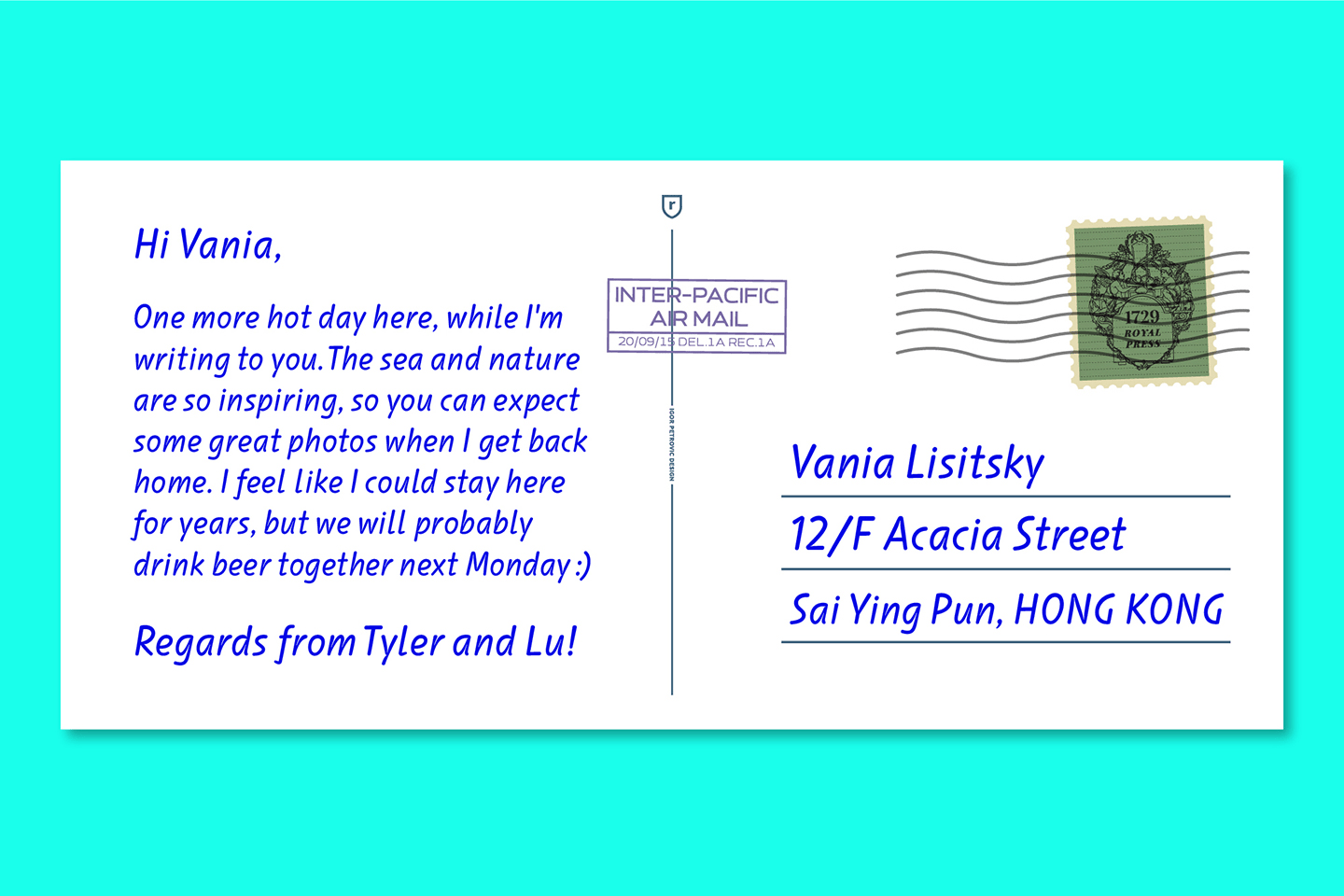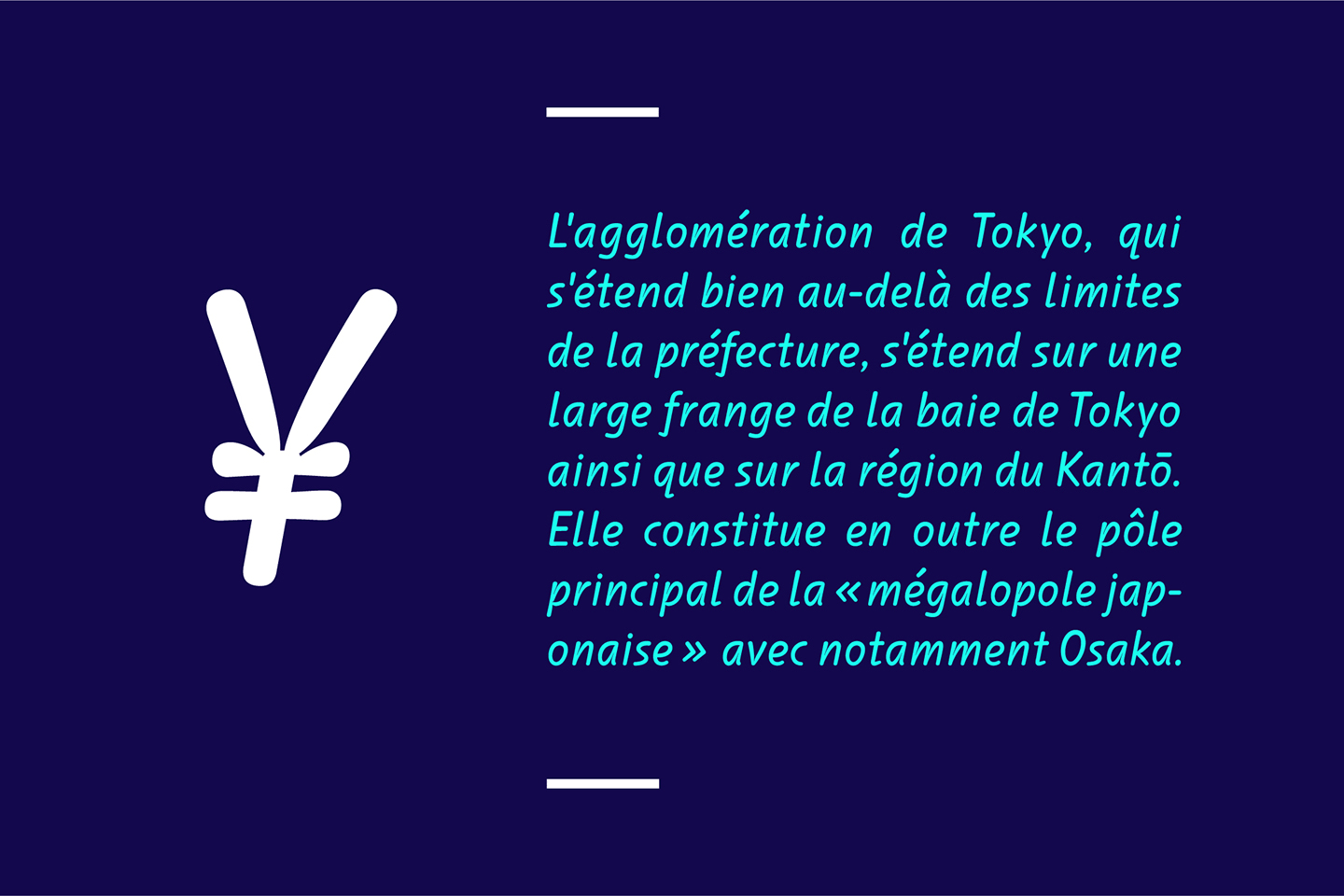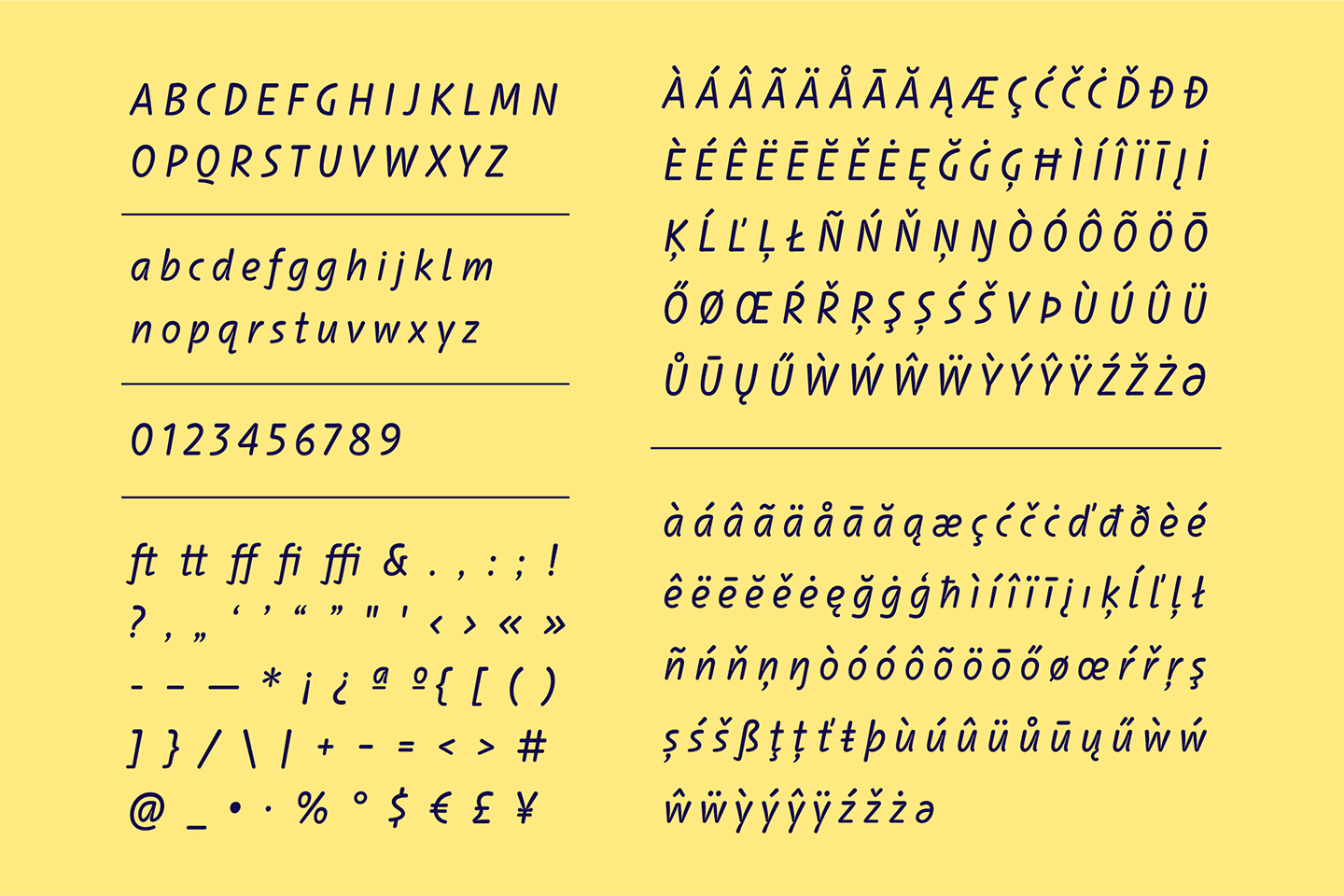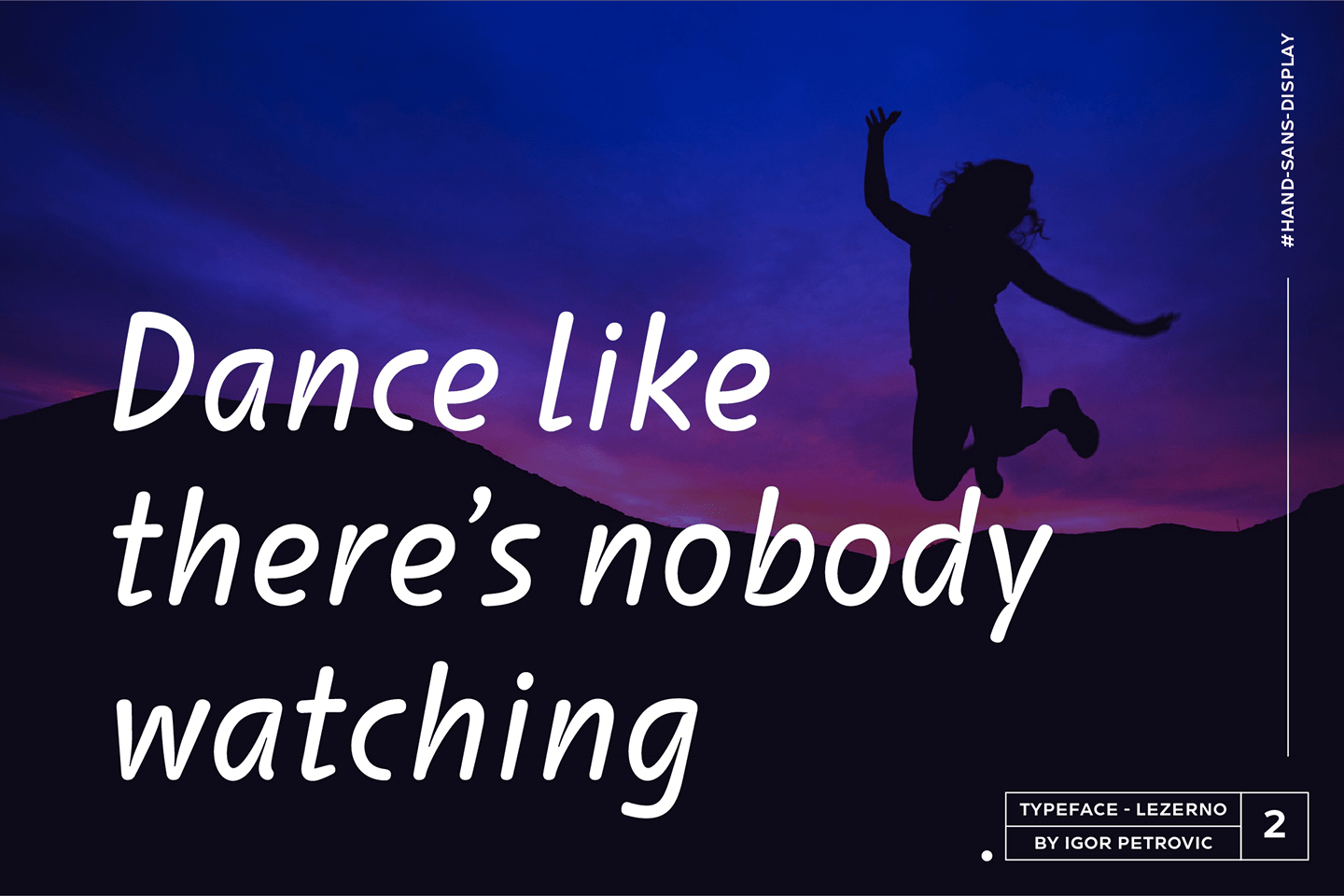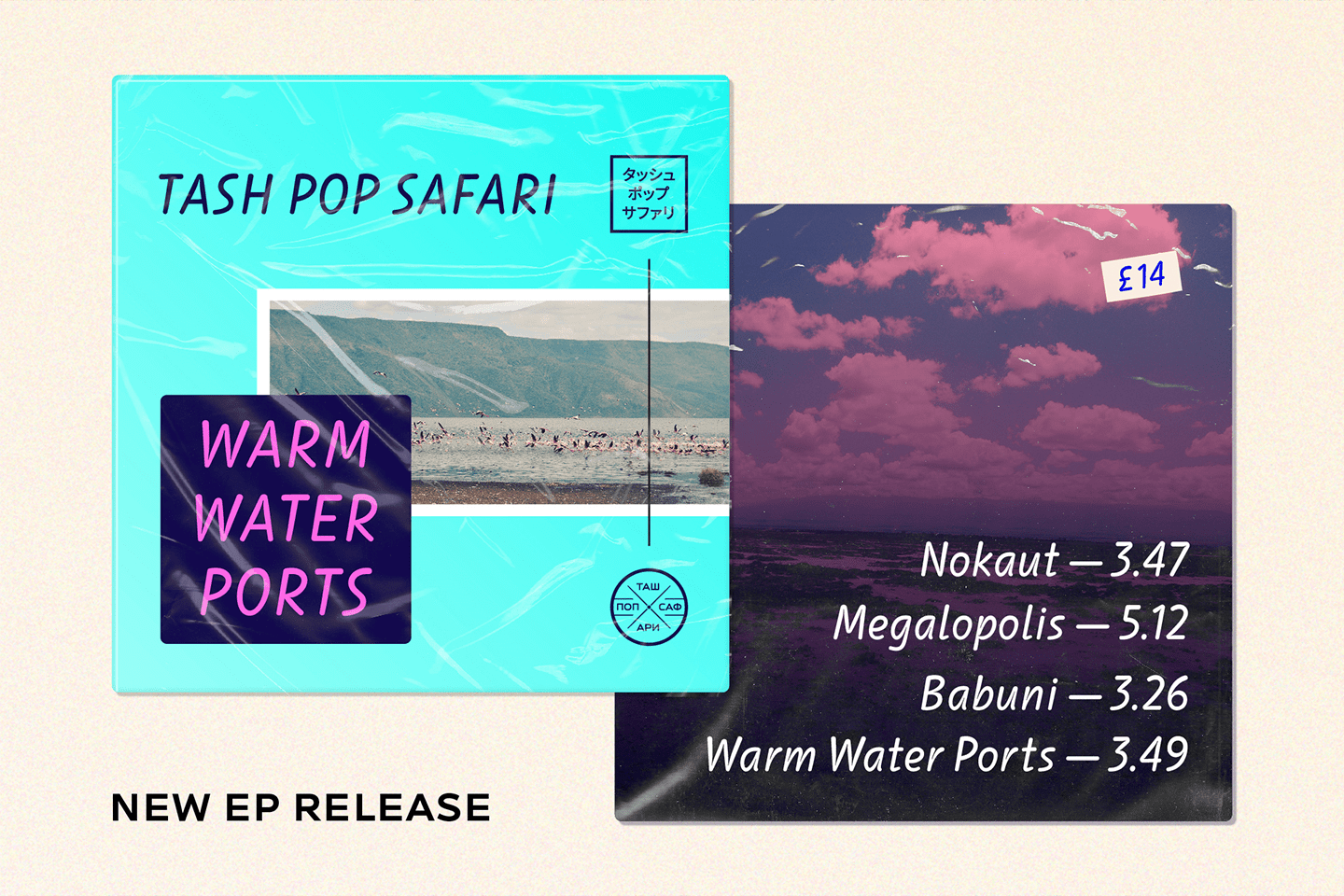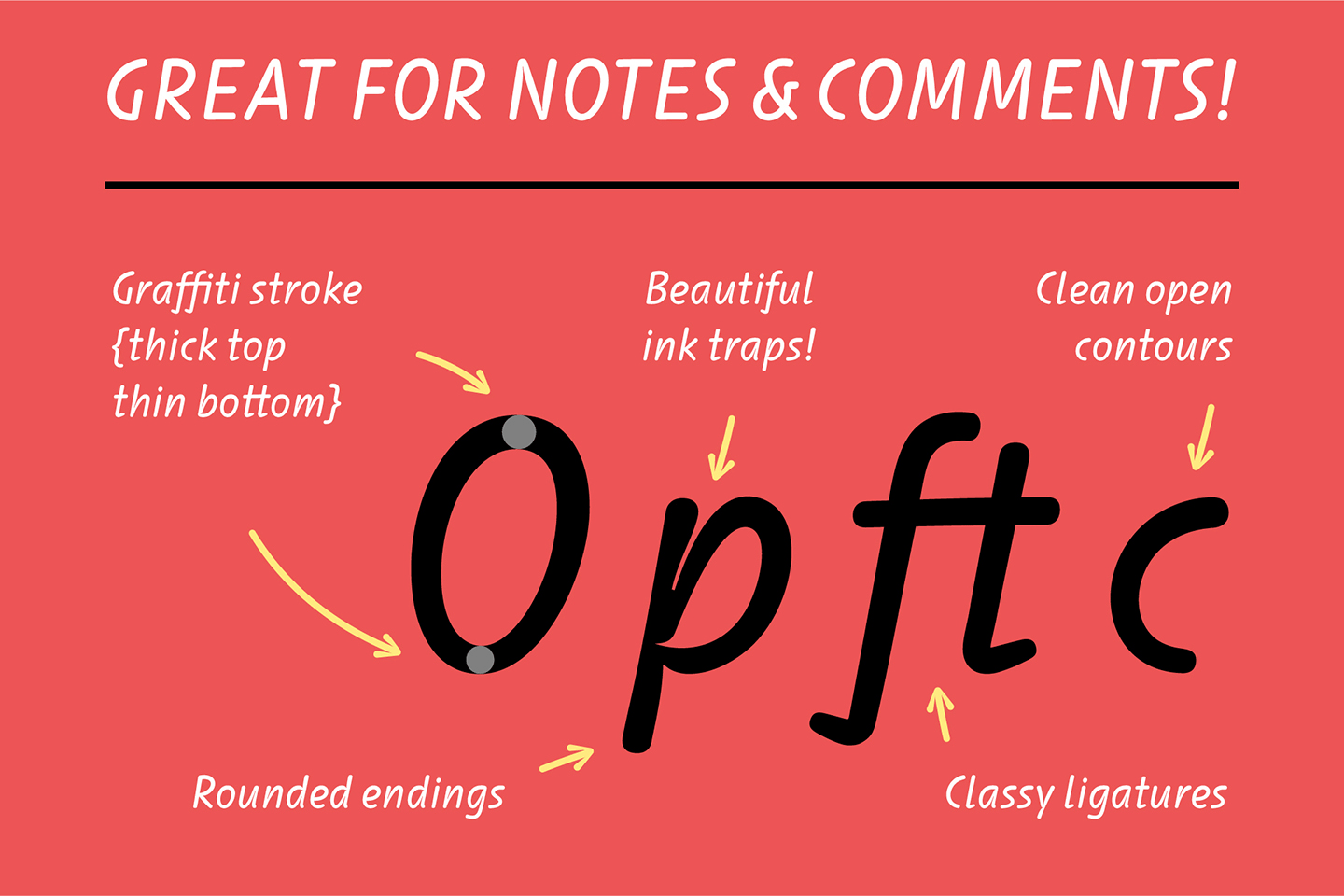
About Lezerno
LEZERNO is a relaxed-looking sans serif typeface with the strong influence of fine informal handwriting. The perfect mix of natural hand movement and legibility. It's great for any graphic material that tends to have an authentic, more personal, friendly,…